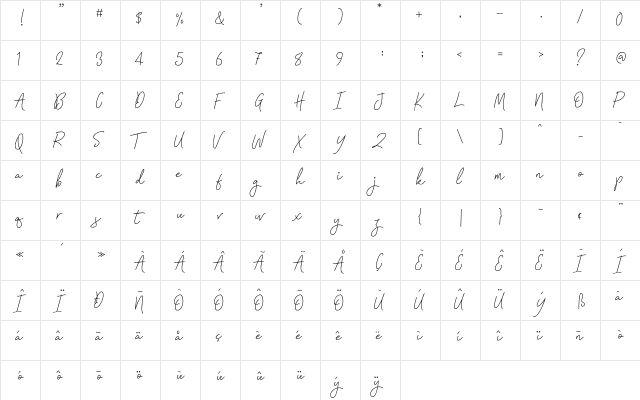
Signatura Monoline Script Regular
| Foundry | Ianmikraz |
| Designer | Ianmikraz |
Design Context for Signatura Monoline Script Typeface
Signatura Monoline Script brings a calligraphic fluidity to the page — its connecting strokes and expressive curves give it an unmistakably human quality.
Font Pairing: Combine Signatura Monoline Script with a simple geometric sans for maximum contrast — the tension between flowing curves and clean structure is a classic typographic pairing.
Pro Tip: Pair Signatura Monoline Script with a clean sans-serif for supporting text. The contrast between fluid script and geometric structure creates an elegant typographic hierarchy.